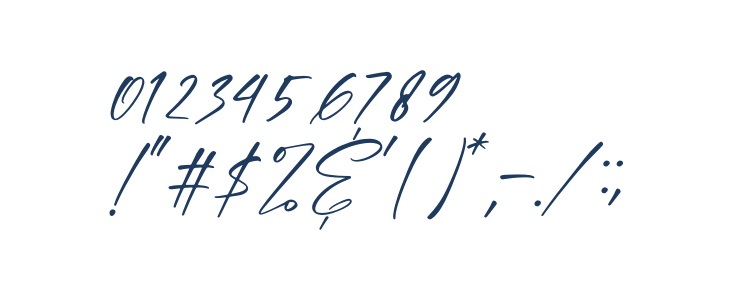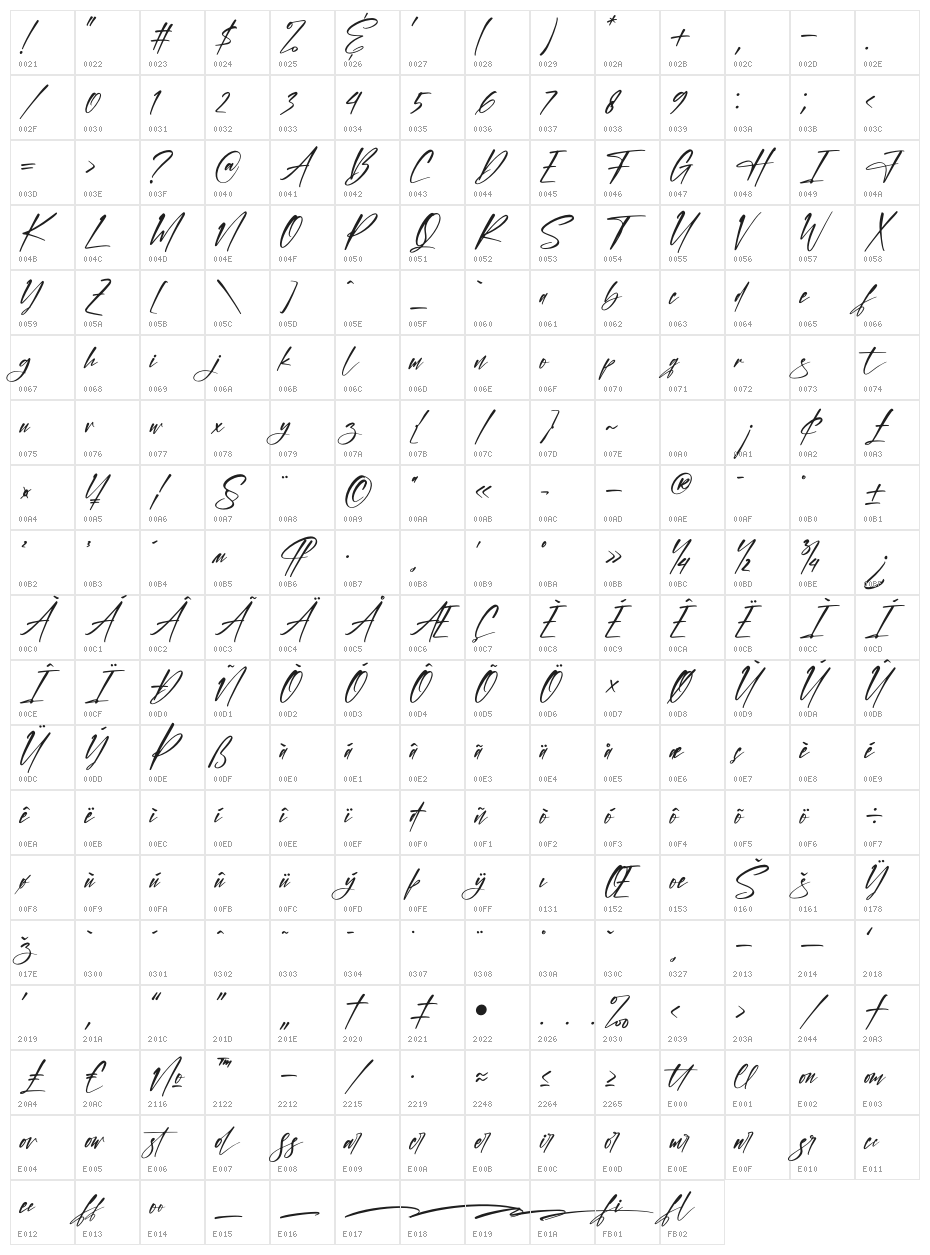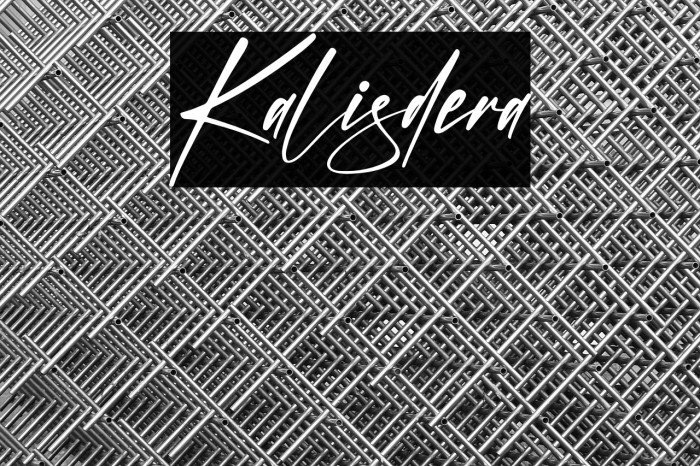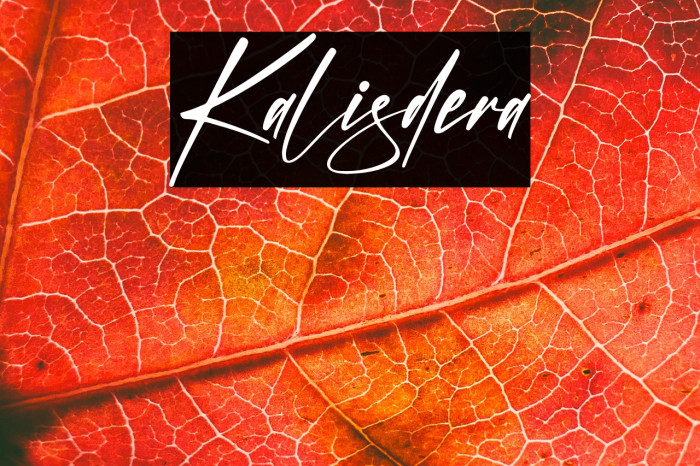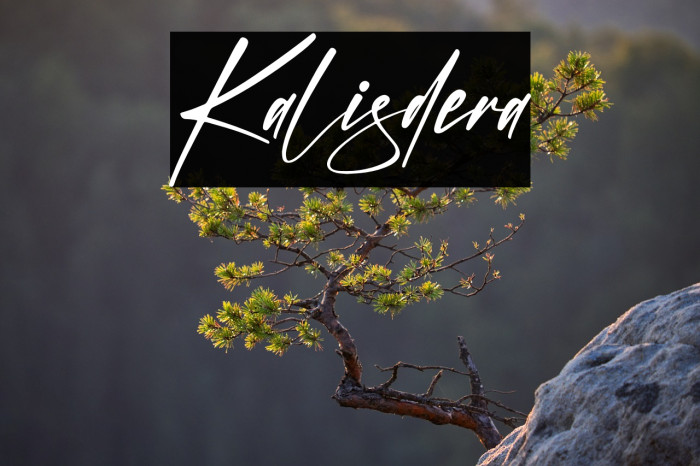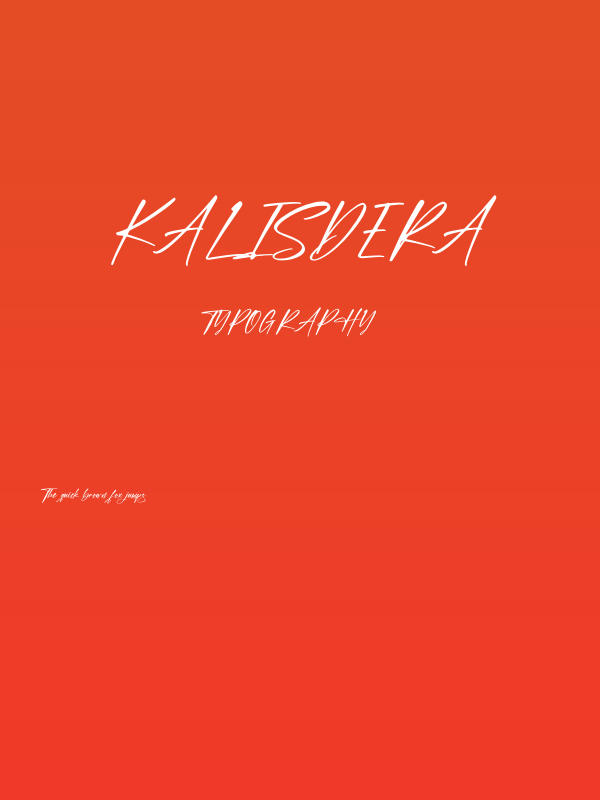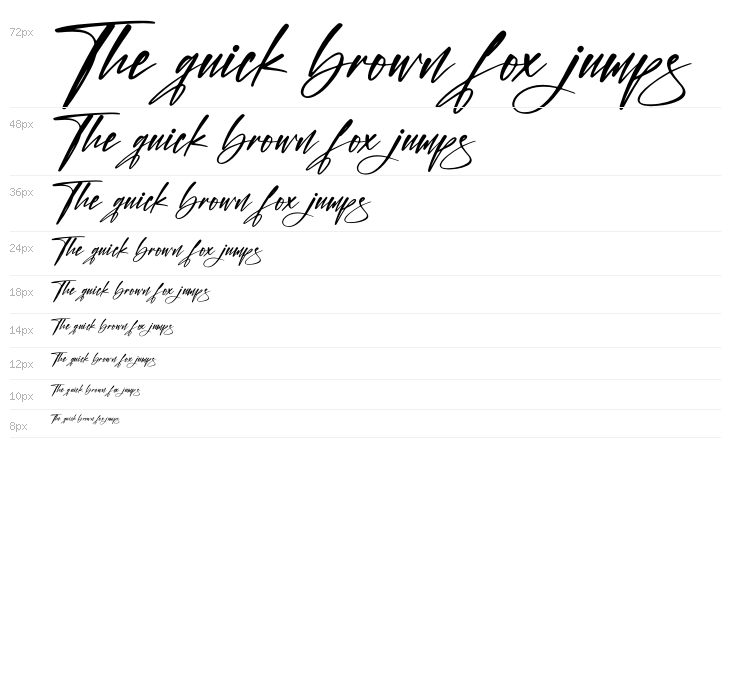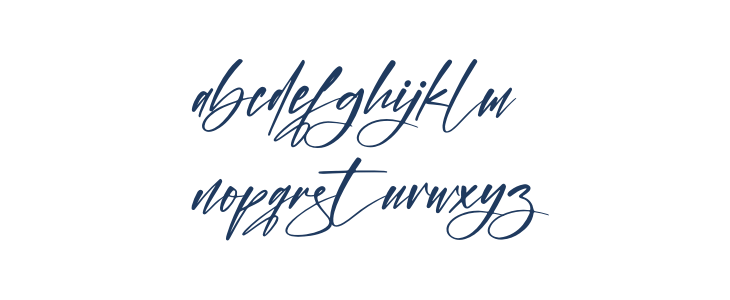
Kalisdera Font
Kalisdera Description
This font exhibits a dynamic and flowing script style, characterized by its elegant and cursive letterforms. The uppercase letters are bold and sweeping, with distinctive loops and flourishes that give a sense of movement and grace. The lowercase letters maintain a consistent flow, with smooth connections between characters, enhancing the script's fluidity. Numbers and special characters are crafted with the same attention to detail, ensuring a cohesive look across all elements. This font's artistic flair makes it ideal for creative and expressive design projects.